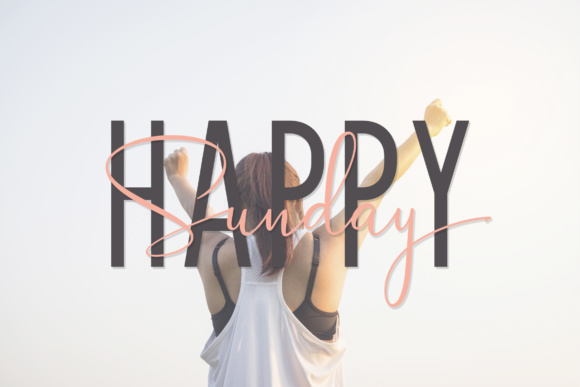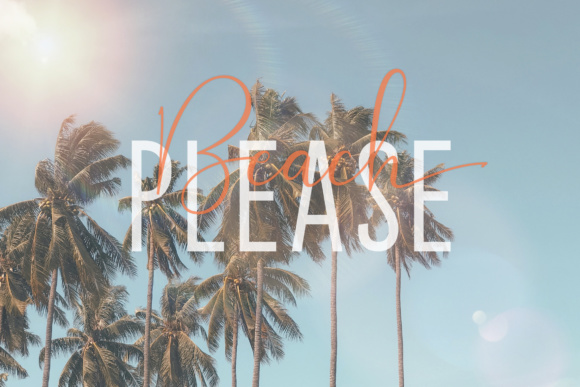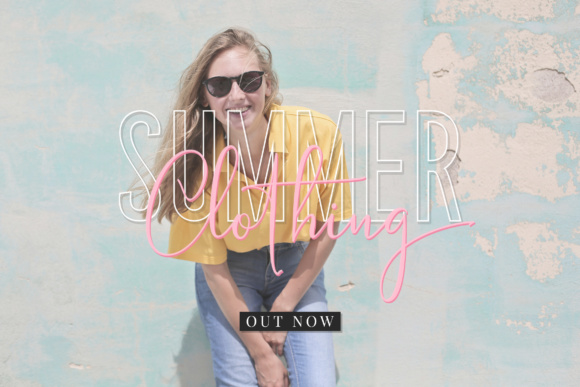
About Raisa Lovers Duo Font
The Raisa Lovers is made with a natural writing technique that looks beautiful and elegant. It’s very suitable for product branding, blogs, trademarks, magazines, fashion, wedding invitations, greeting cards and much more.
The Raisa Lovers comes in two variations: script and sans capital, which look beautiful combined but can also be used as strong standalones.